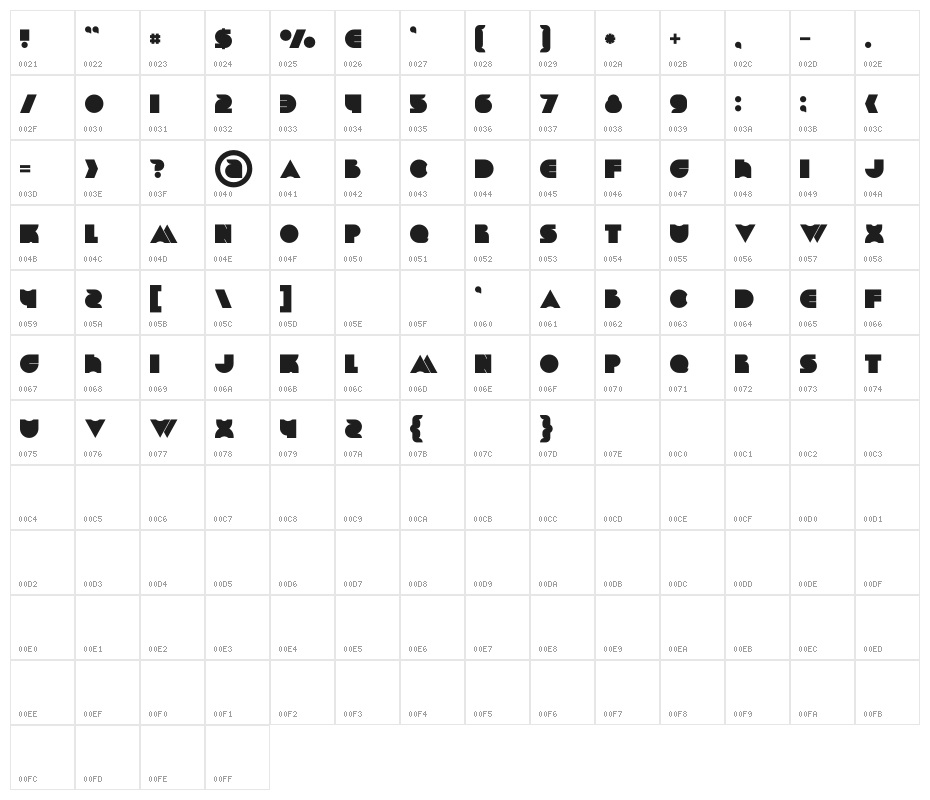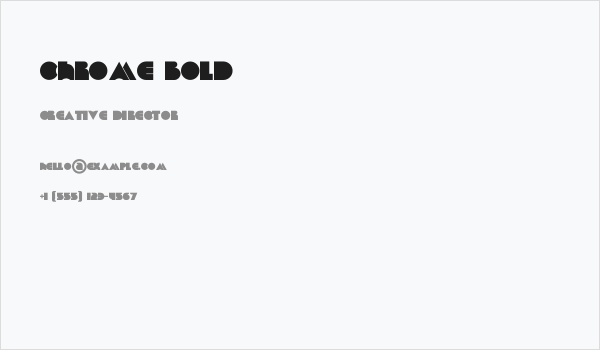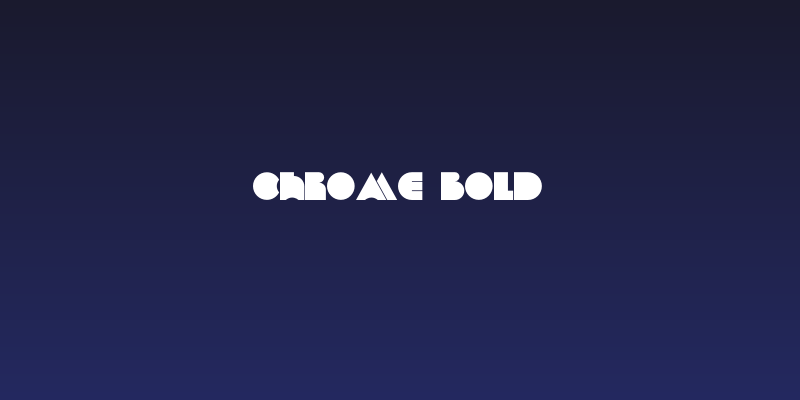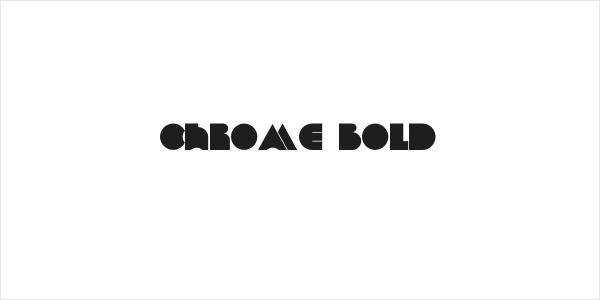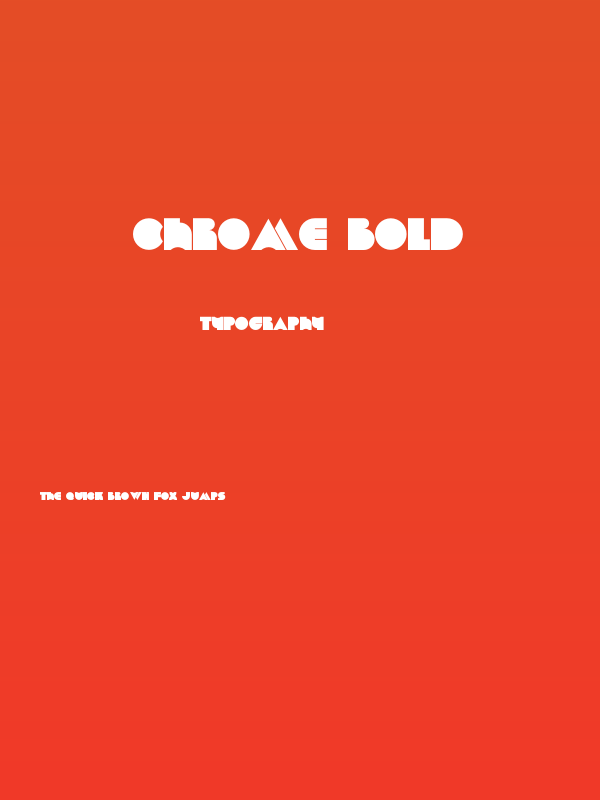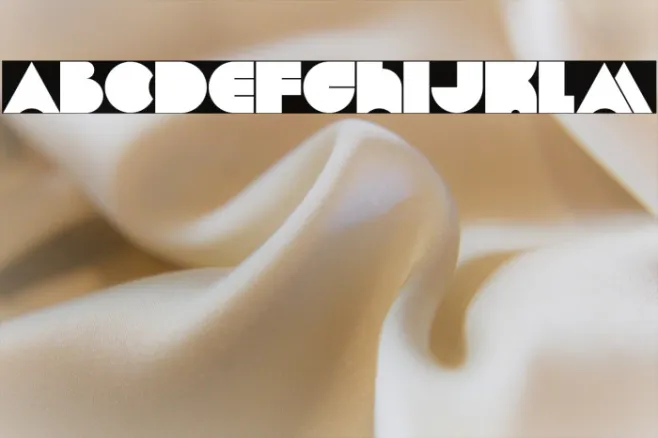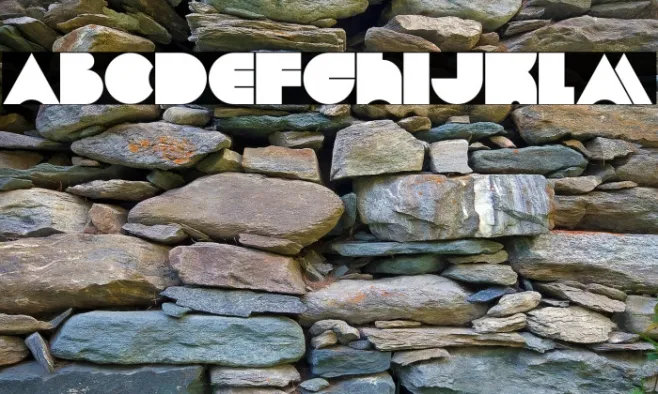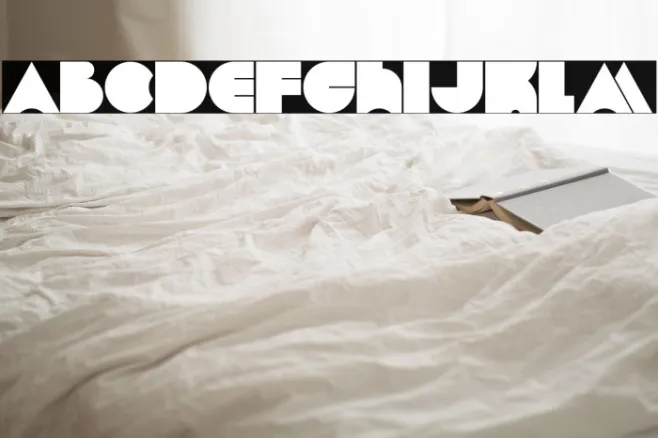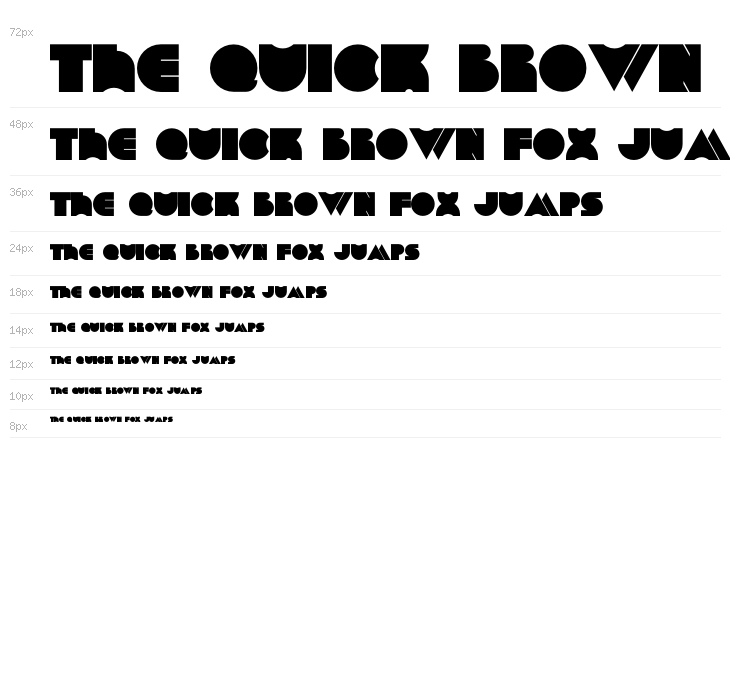
Chrome Bold Font
Chrome Bold Description
This bold, geometric typeface features a striking and modern design with a strong emphasis on angular shapes and sharp edges. The characters are constructed with a combination of solid blocks and triangular forms, creating a unique and eye-catching appearance. The uppercase and lowercase letters maintain a consistent style, with the numbers and special characters following suit. The font's boldness and distinctive style make it ideal for impactful designs where attention is key.
| Proposed Projects | Ideal for branding, poster designs, album covers, and any project requiring a bold, modern aesthetic. |